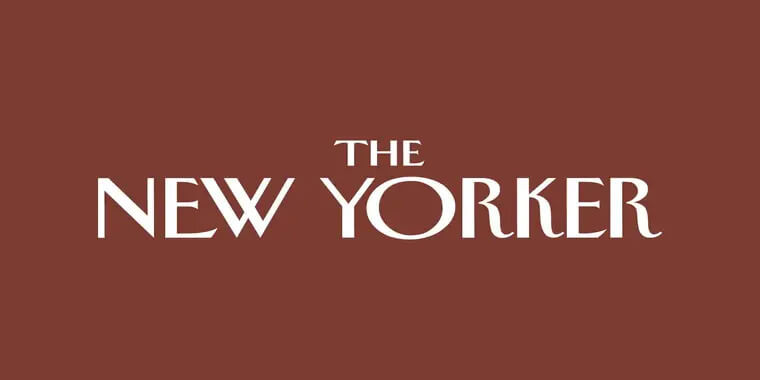
The New Yorker is a famous American magazine that talks about news, opinions, and culture. It started in 1925 and is known for combining detailed reporting with a fancy way of writing, funny jokes, and cool art.
There’s a special font called New Yorker Type made by Gert Wiescher. It brings back the style of The New Yorker’s logo and is used for the magazine’s name.